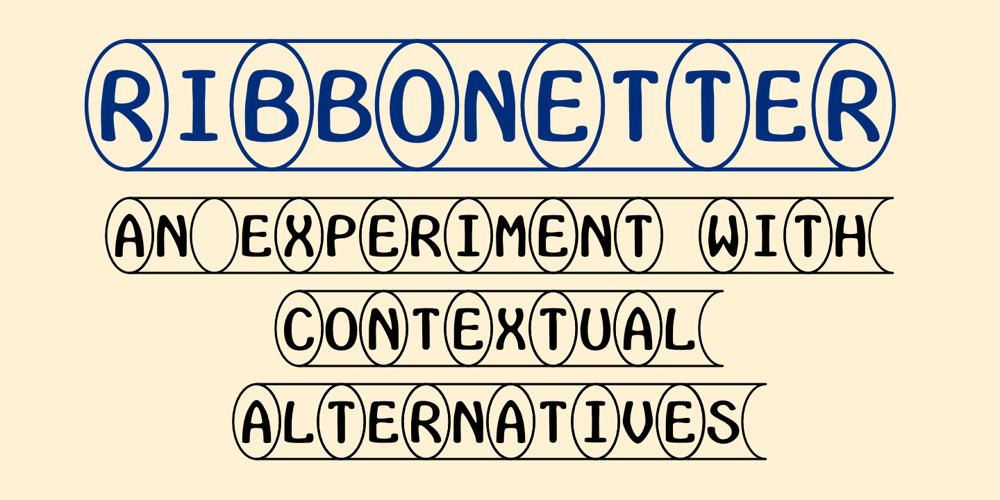
Ribbonetter Font Family was designed by Robert Schenk and published by Ingrimayne Type. Ribbonetter contains 1 styles and family package options. Ribbonetter is an experimental font playing with the calt or contextual alternatives feature of OpenType. This feature alternates letters in ovals with letters in hourglass shapes to create a banner. The letters in the ovals will be determined by the start of the line, whether it starts by typing an upper-case or lower-case letter.Using layers, background color can be added (dot accent and ring characters) or the outline color can be changed (sterling and yen characters). The font may also be useful with the contextual alternatives turned off. Different amounts of character spacing may give interesting results. With default character spacing, ovals with will overlap.If you are typing numbers and want the start to be an oval, switch on OpenType style set 2. In at least one word processor (Pages 5 for Macintosh) the carriage return adds the shape assigned to the space character. If you encounter this, try adding a nonbreaking space (option-space on the Macintosh) before the carriage return.